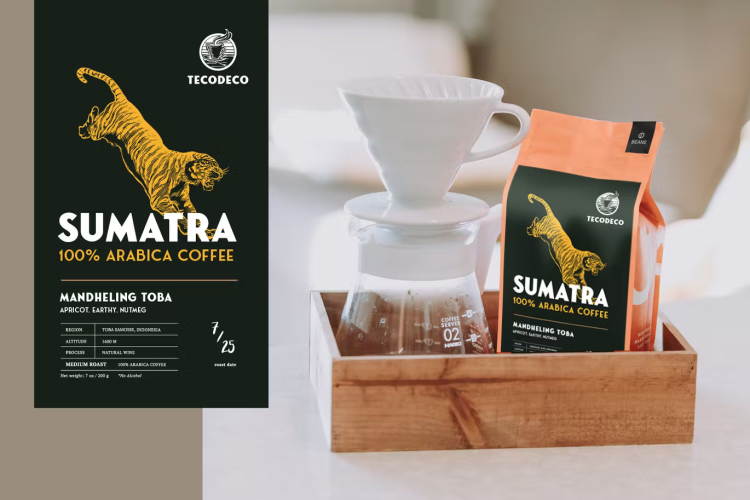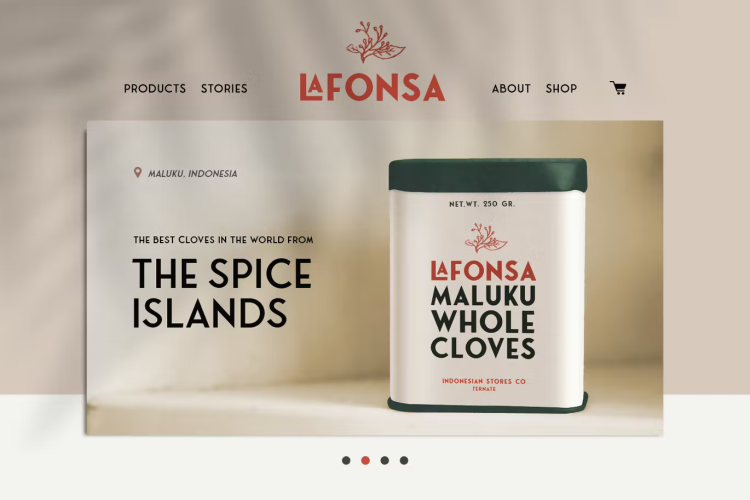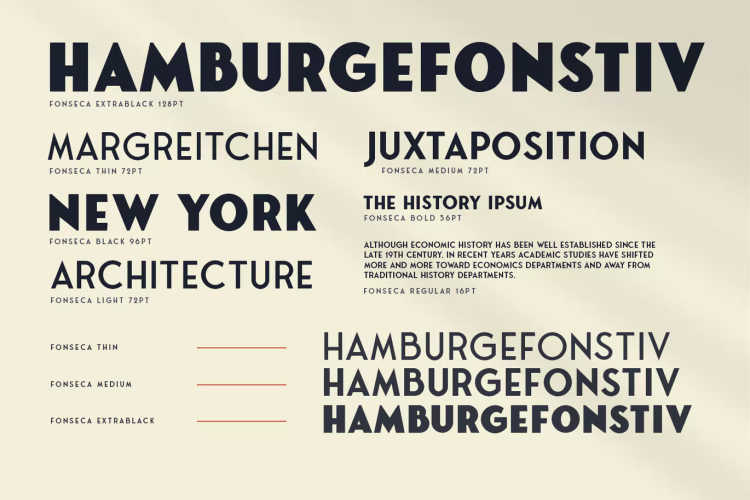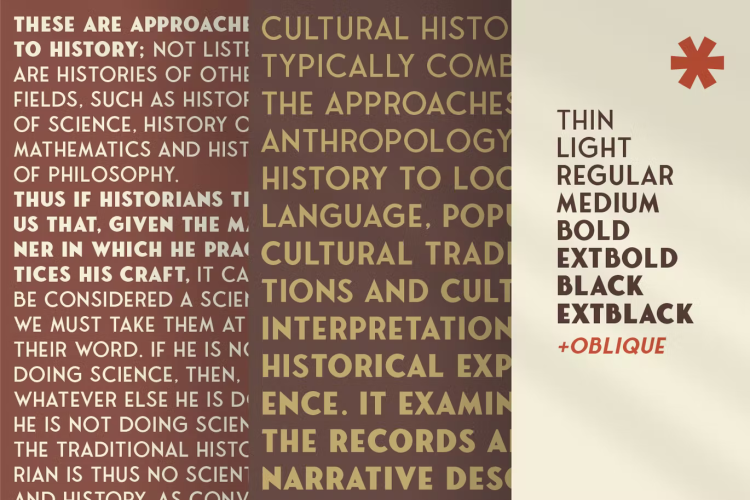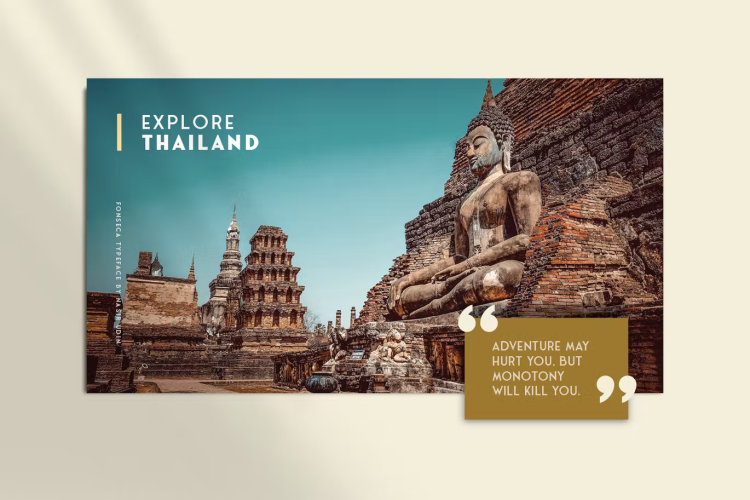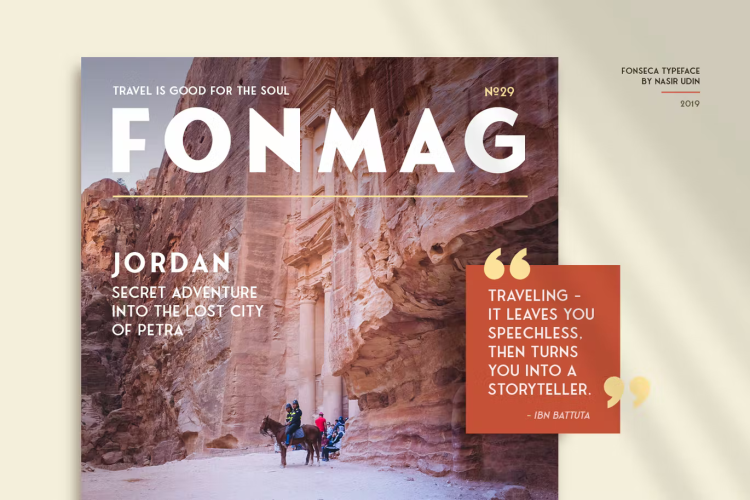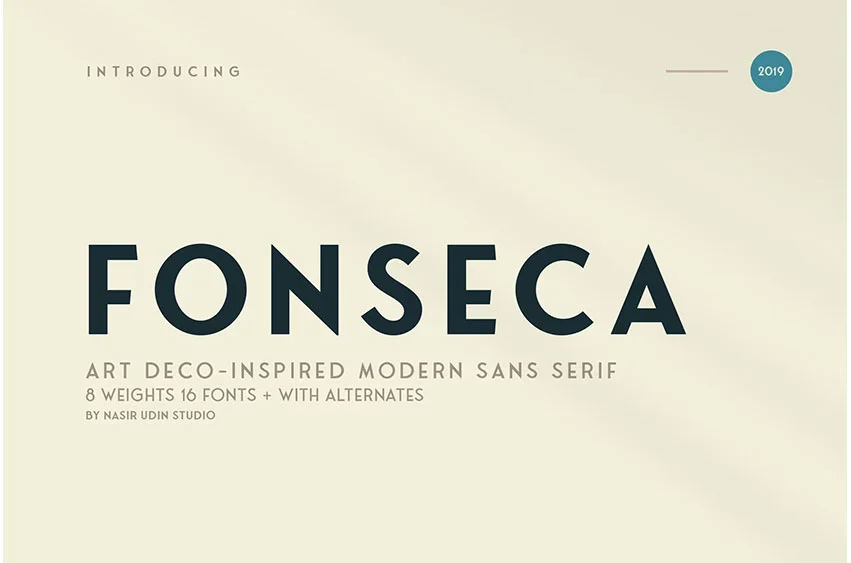
Fonseca Font
Fonseca Font is a modern sans serif inspired by art deco and typography posters in the early 20th century. The key to this all-caps family is simple straight geometric forms and modernized letterforms.
The modernized retro-look makes this family great to present any content related to travel, history & culture in the present/modern way. This display family is perfect for headlines, posters, logos, branding projects, magazines, and packaging.
Where Fonseca Font works best
Fonseca Font keeps its shape at 14 and 16 pixels, which is where interface text actually lives. Numbers and capitals stay distinguishable in tables.
Presentations are read at a distance; a clean sans with a strong bold is the safest hierarchy you can build in a hurry.
Simple letterforms survive angles, glare and movement, so Fonseca Font suits door signs, menus boards and exhibition panels.
What kind of work does Fonseca Font suit?
It sits in the Sans Serif Fonts group and reads as branding, display, geometric, modern. That makes it a candidate wherever those qualities help: headings, packaging, social graphics and brand work. Set it at the size you plan to use before deciding.